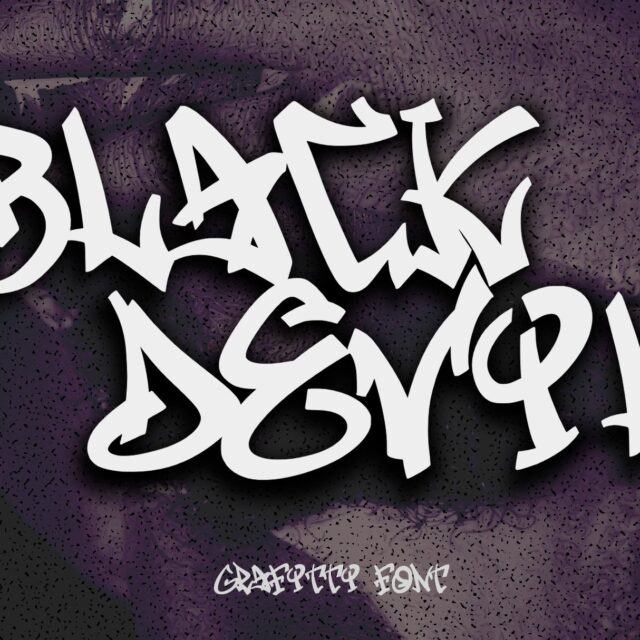
“Black Devil” is a natural monoline graffiti font with a street art theme. Its raw and urban style captures the essence of street culture, making it the perfect choice for projects that require an edgy and artistic touch. Whether you’re designing posters, logos, or apparel, “Black Devil” adds an authentic and rebellious flair to your typography, bringing your street-inspired creations to life.